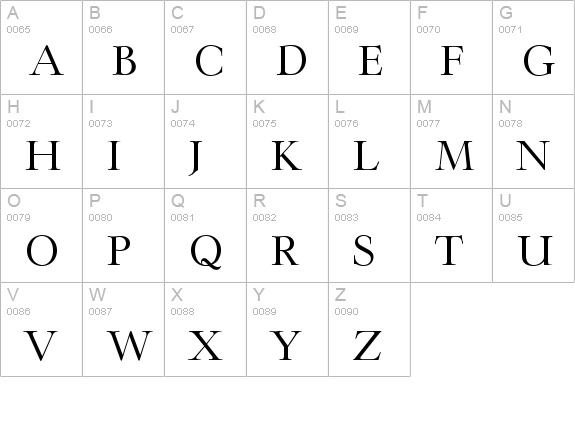
Lingwood-Regular Font Details
Lingwood-Regular is the standard, neutral variant in the Lingwood typeface family \xE2\x80\x94 well suited to general body text, paragraphs, and standard typographic work.
Lingwood-Regular font is a beautiful and elegant typeface that exudes sophistication and charm. Its sleek lines and graceful curves make it perfect for a wide range of design projects, from invitations to branding and beyond. The timeless quality of Lingwood-Regular font will add a touch of class to any design. What's even better is that Lingwood-Regular font is available for free download at FontsMarket.com. This means you can effortlessly elevate your designs without breaking the bank. Whether you're a professional designer or just starting out, Lingwood-Regular font is a versatile and stylish choice that will make your creations stand out. Download it today and let your creativity soar with this exquisite typeface.